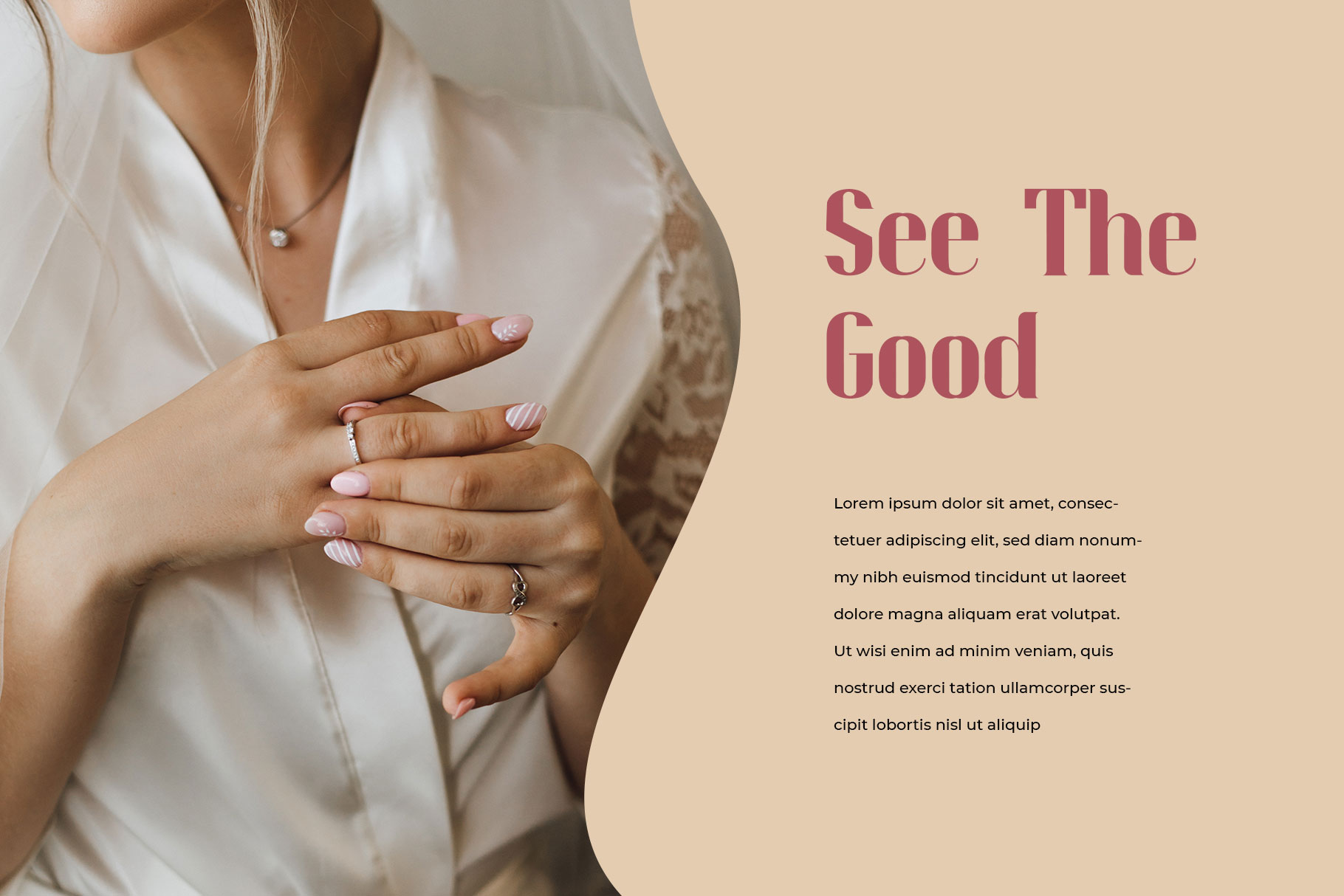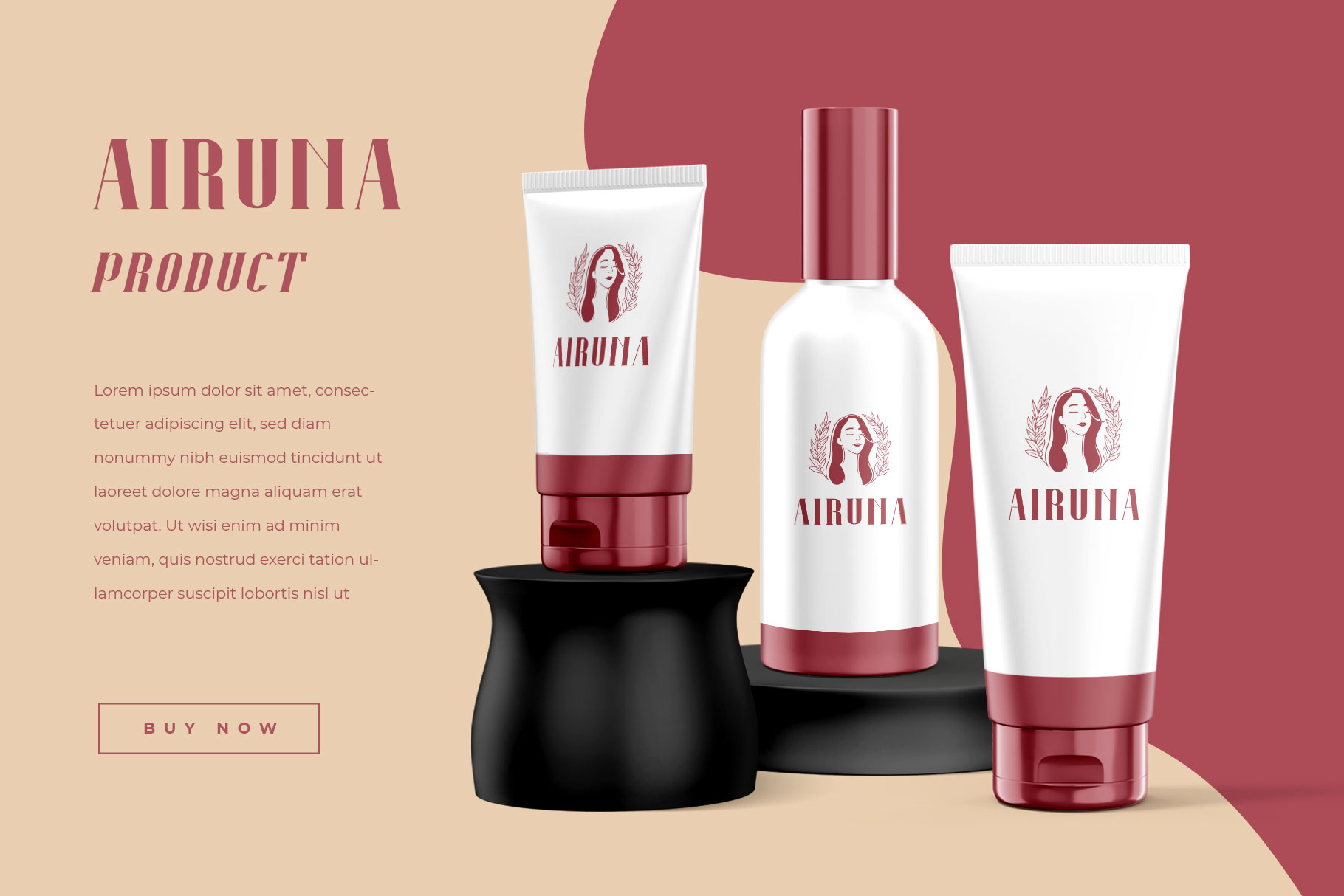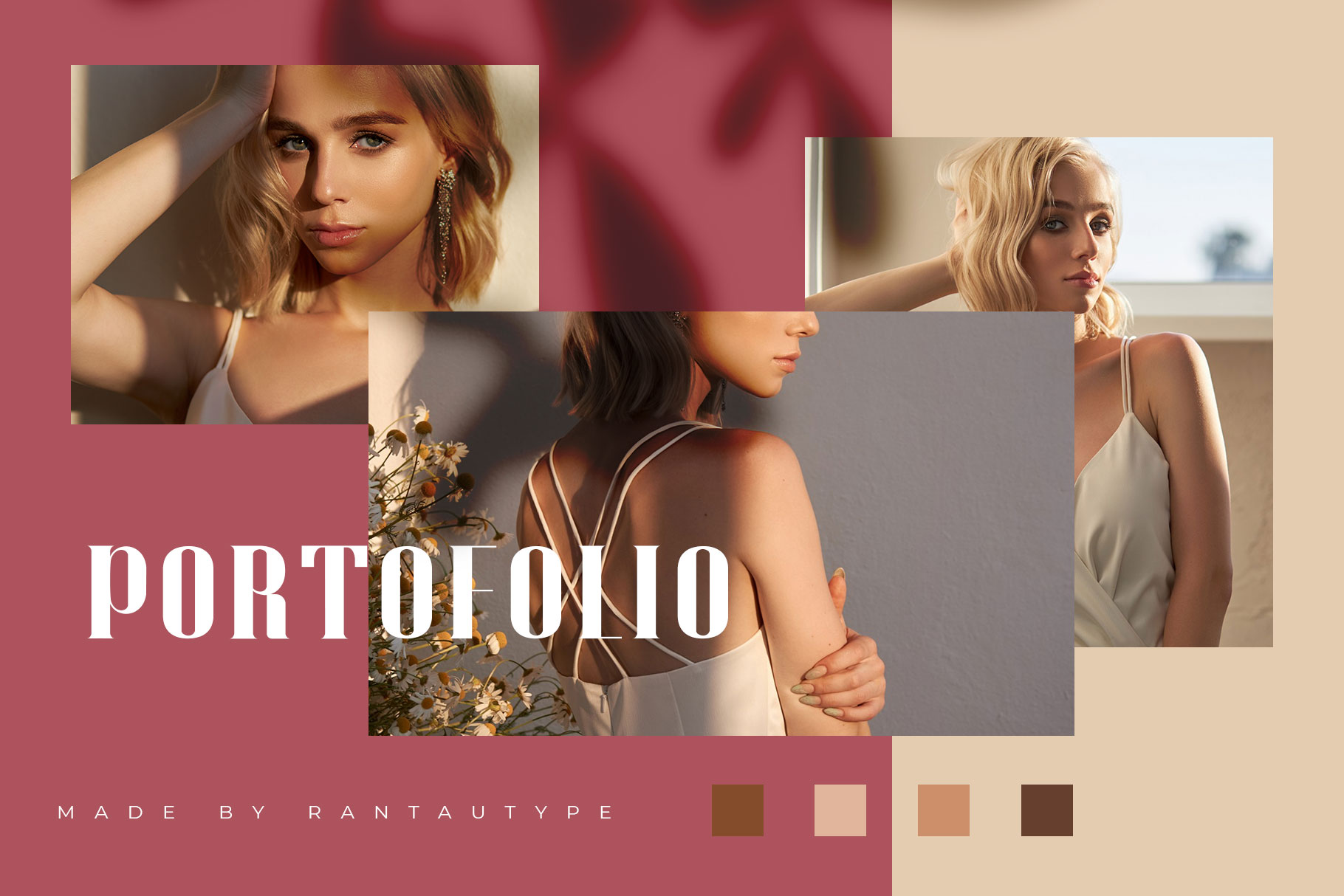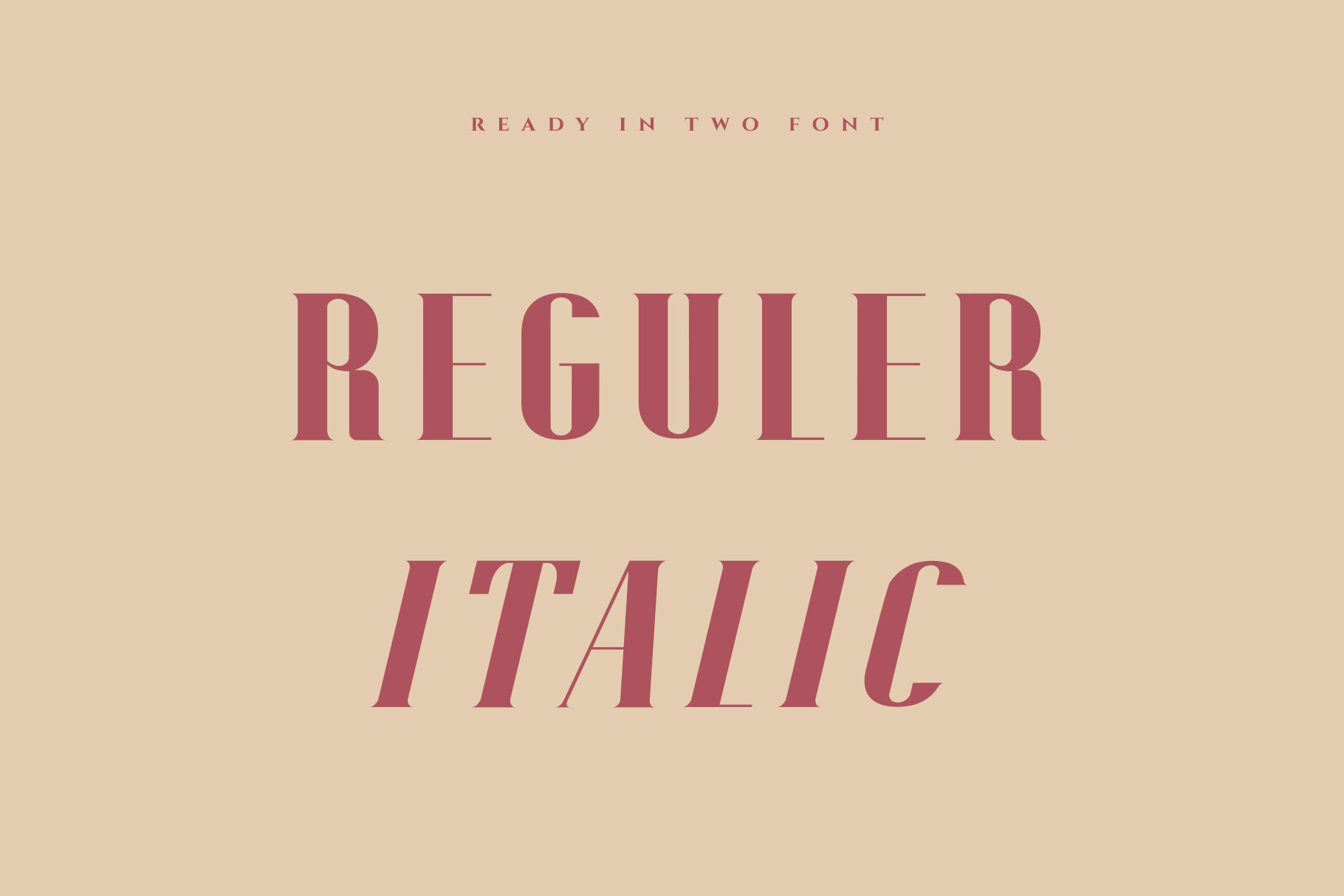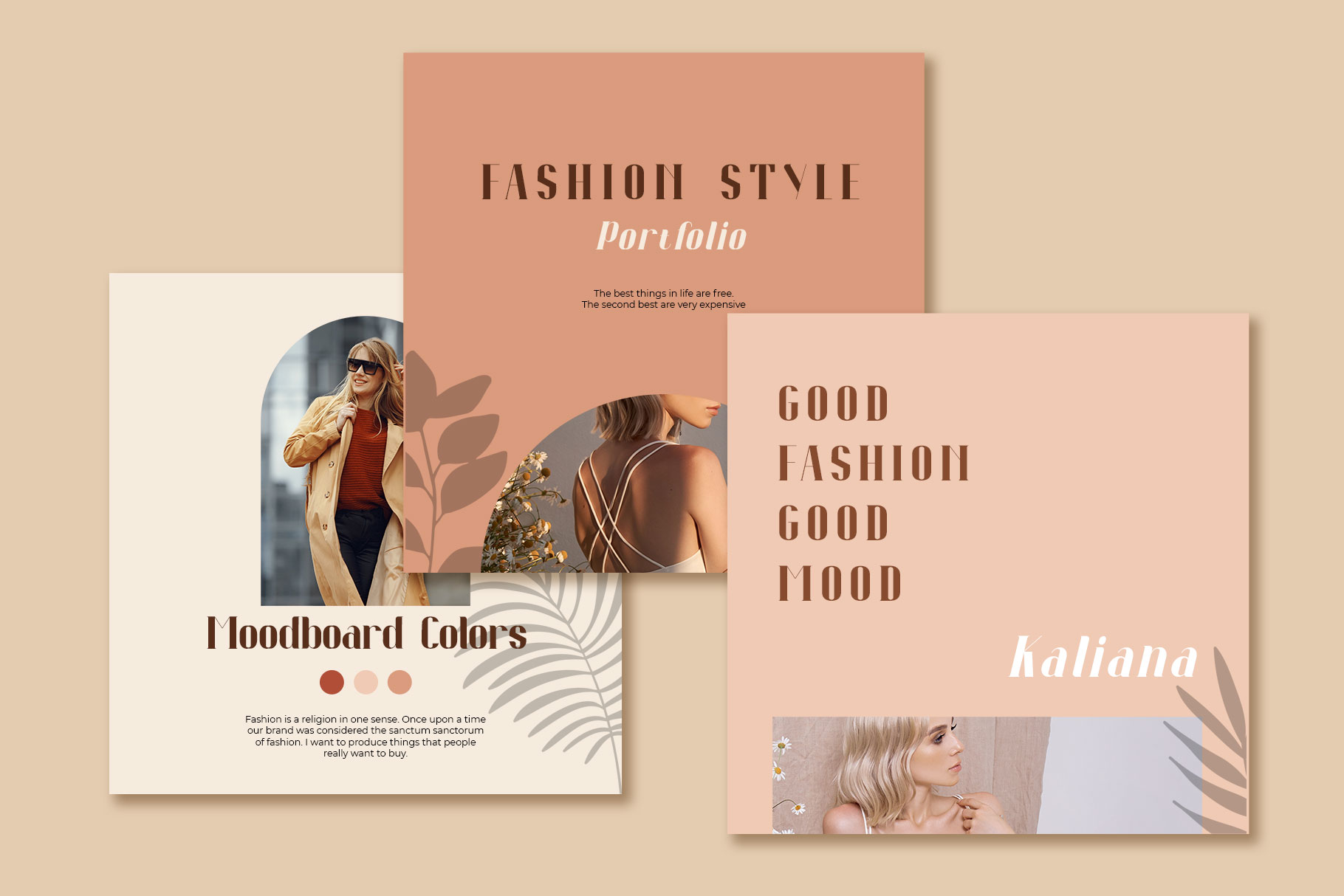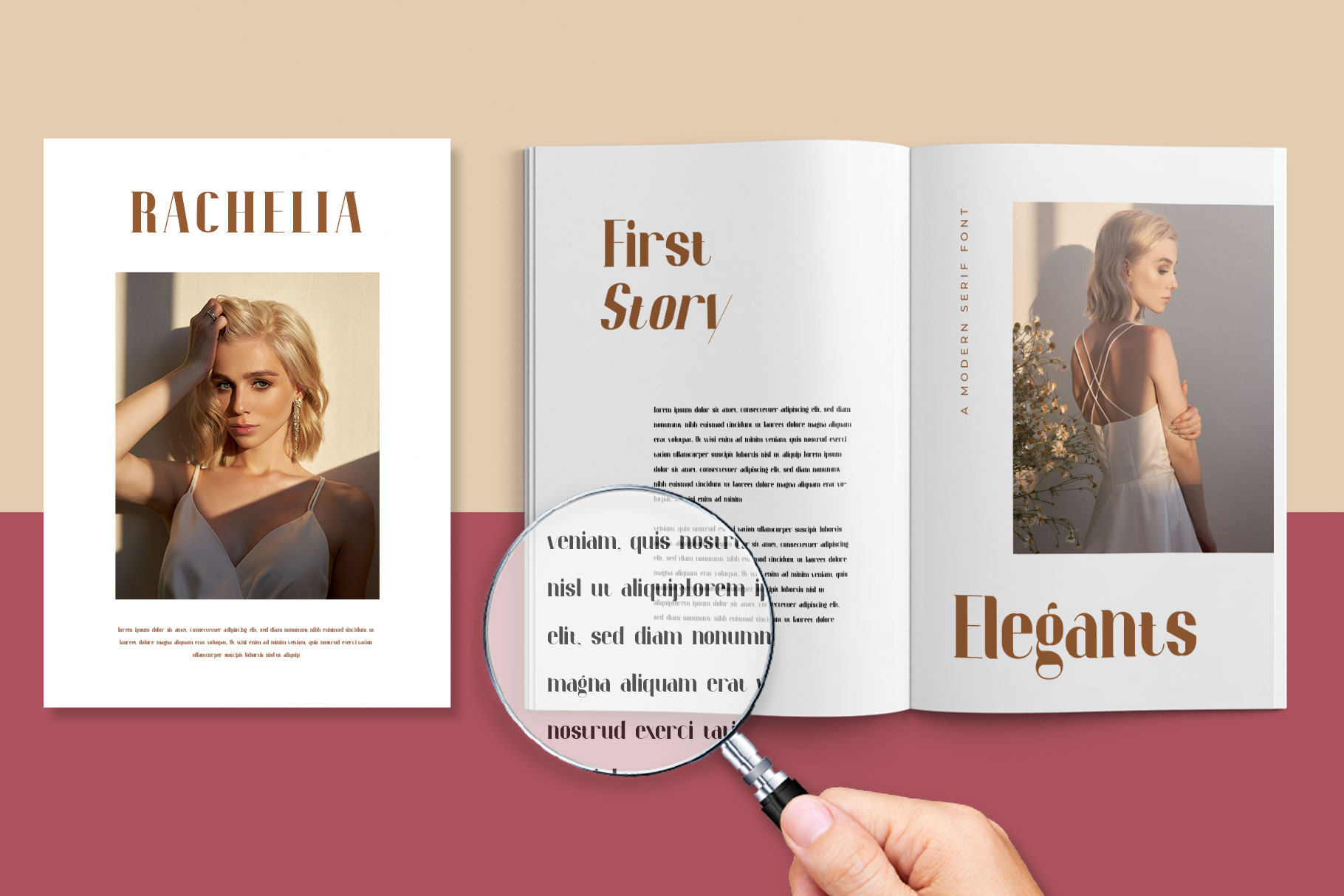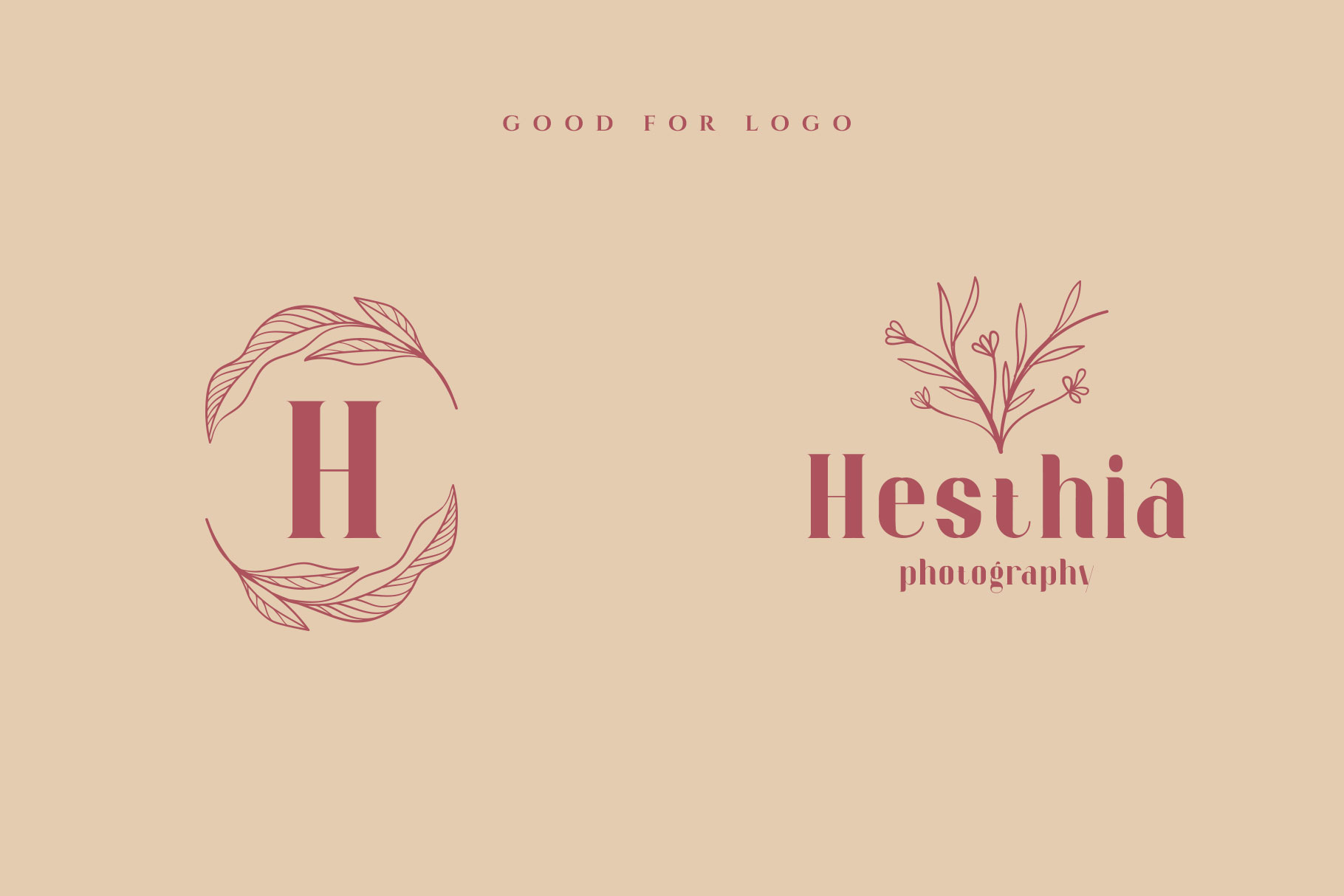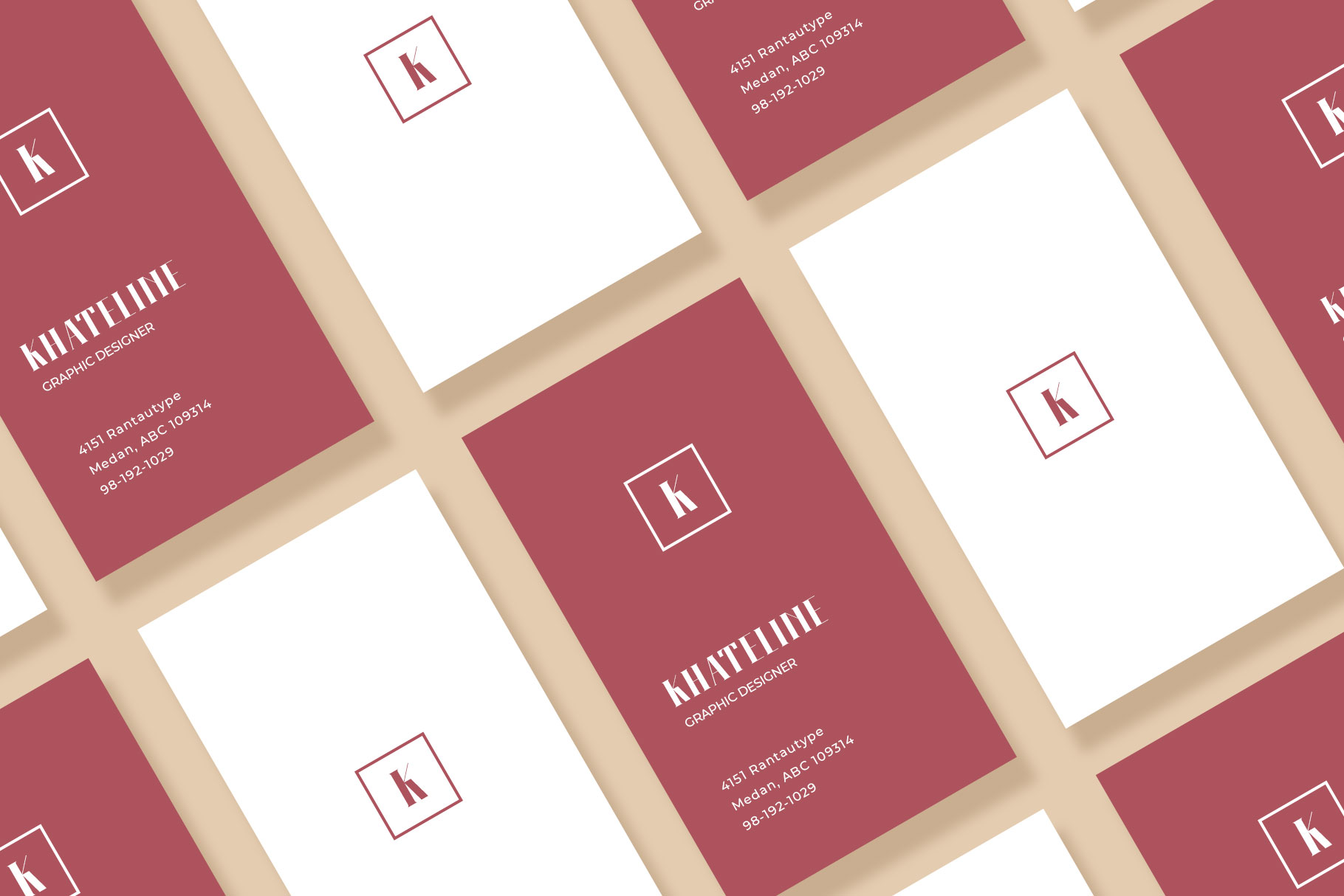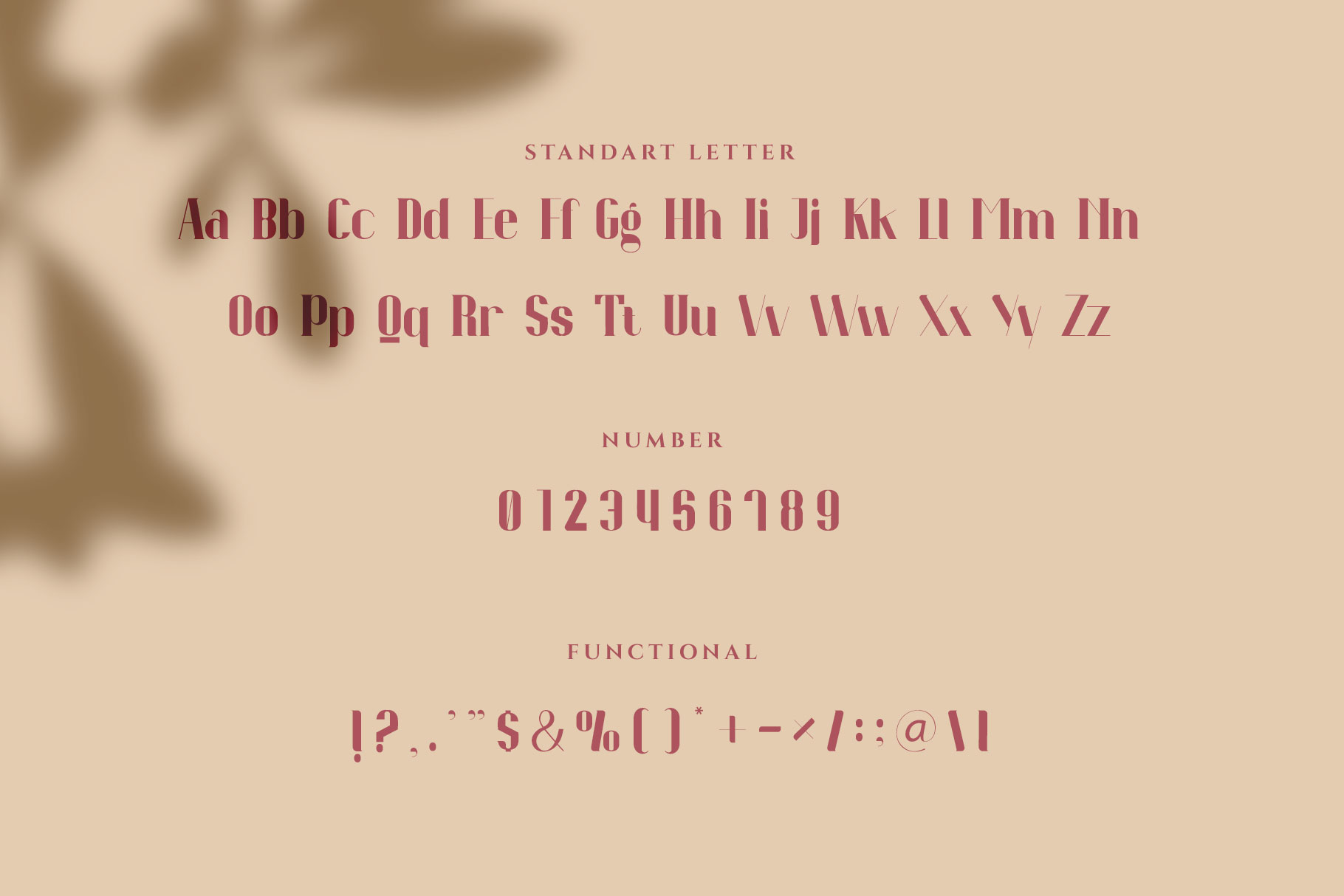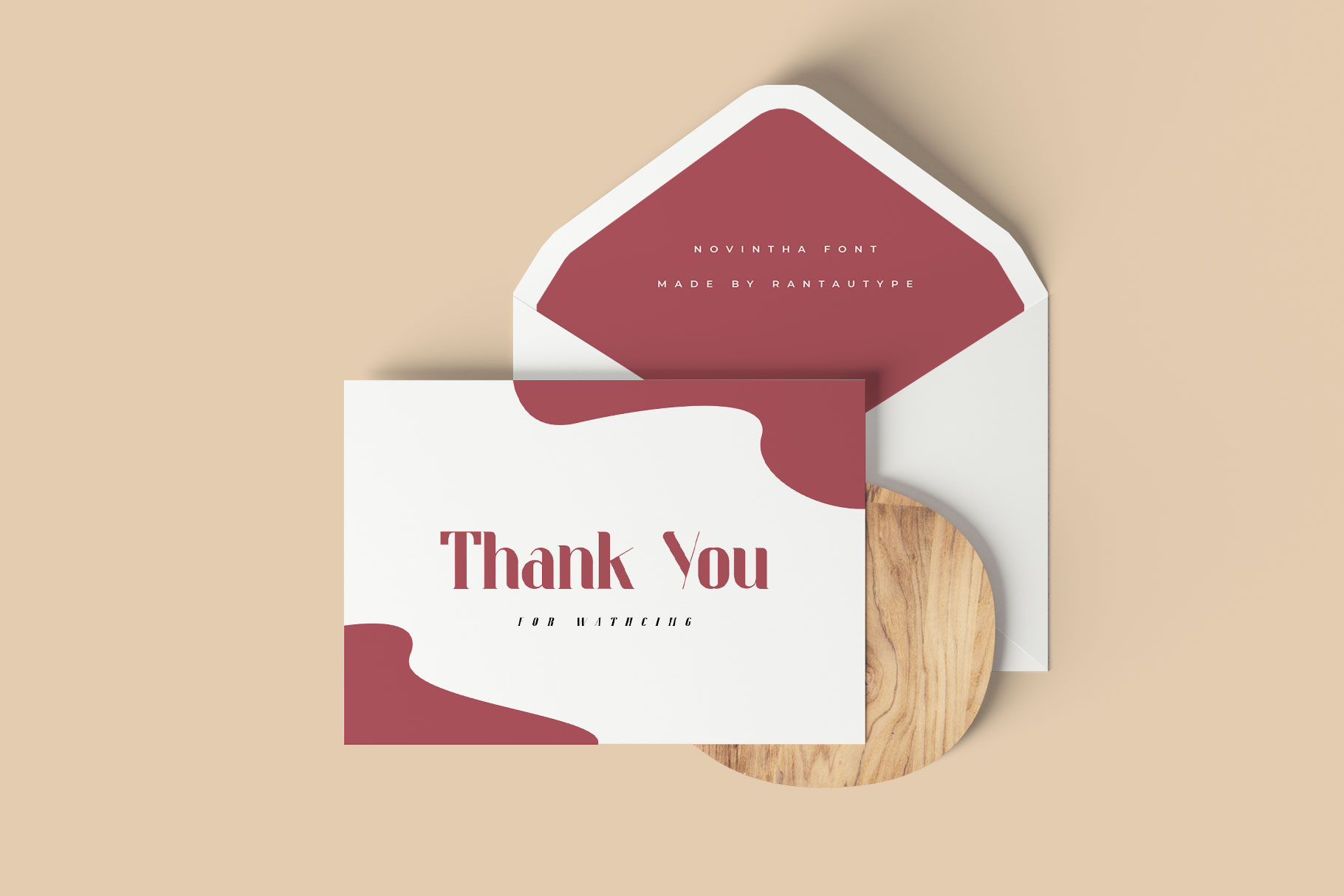
Novintha Classy serif font
Novintha is classic serif font. Perfect for all sorts of projects such as logo design, branding, web design, packaging, social media, and so much more!
• 2 Font Reguler and Italic
• Basic Latin A-Z and a-z